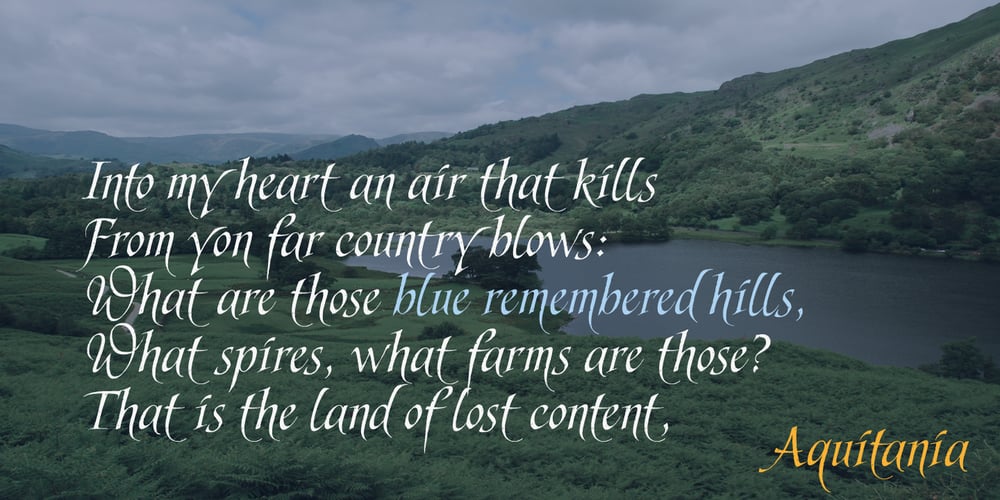
Aquitania Script
Aquitania Script font
Aquitania Script Font Family was designed by Alan Meeks and published by Alan Meeks. Aquitania Script contains 1 styles and family package options. Aquitania Script is a natural but stylish handwritten font with a textured finish. Clearly legible in all sizes, Aquitania is ideal for headlines as well as small text.